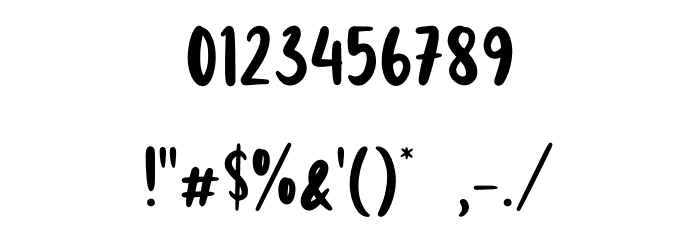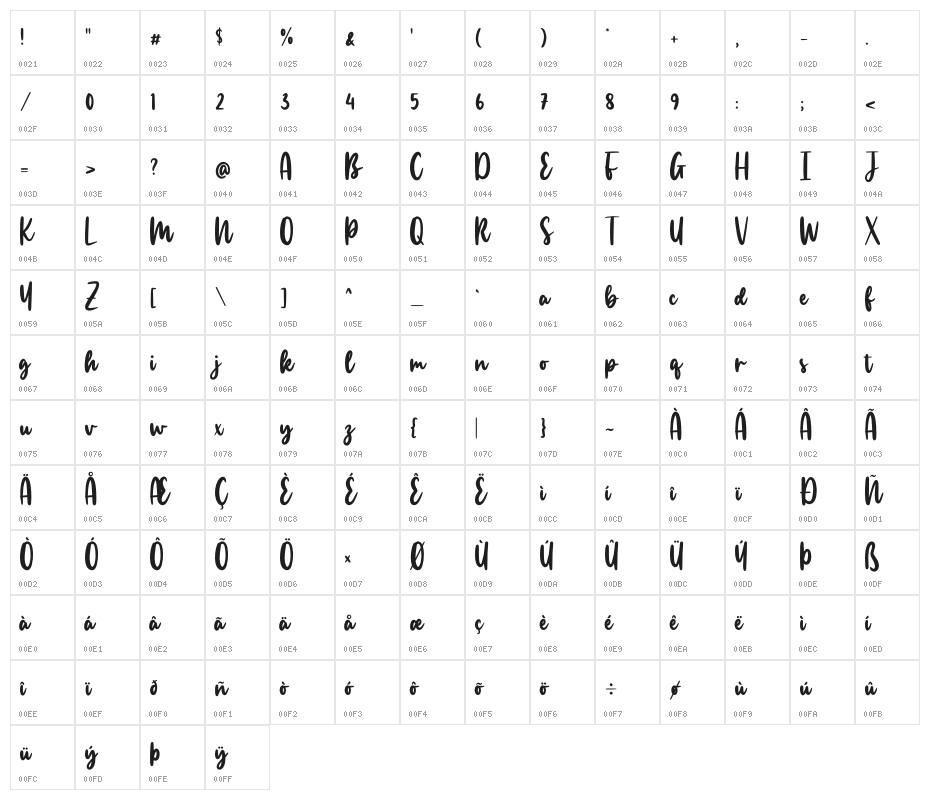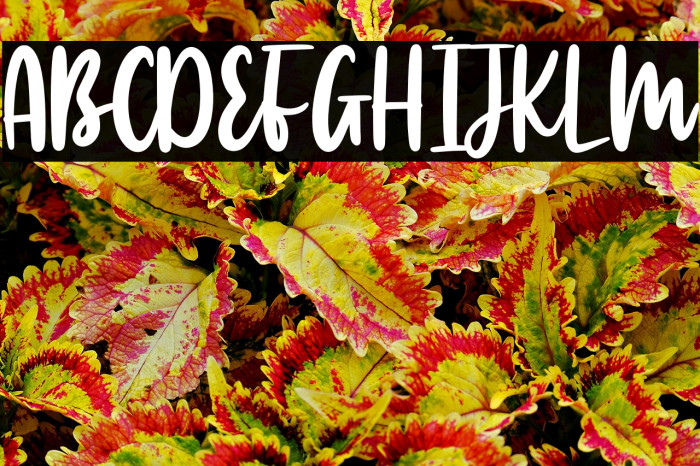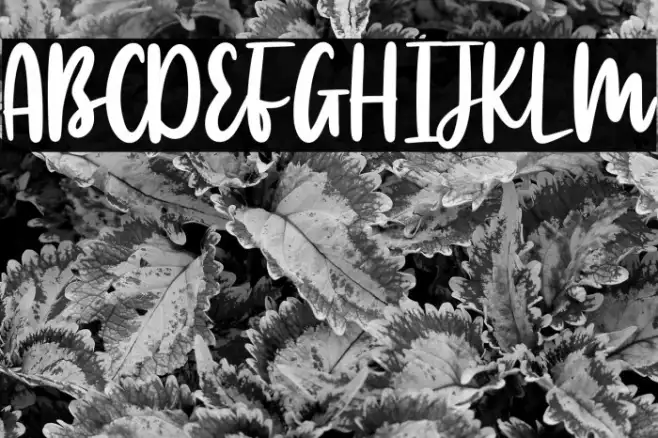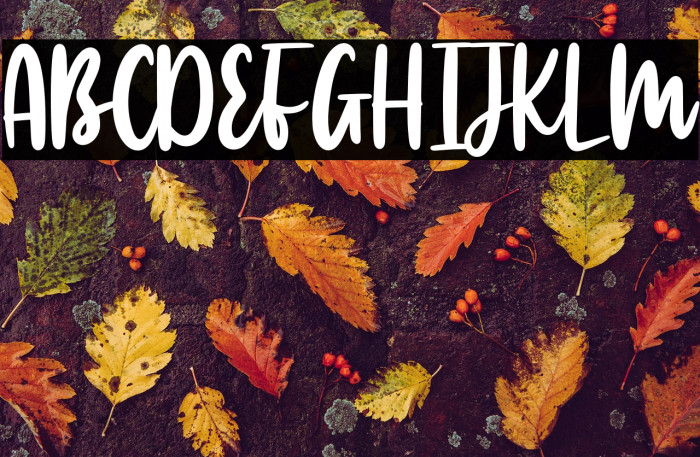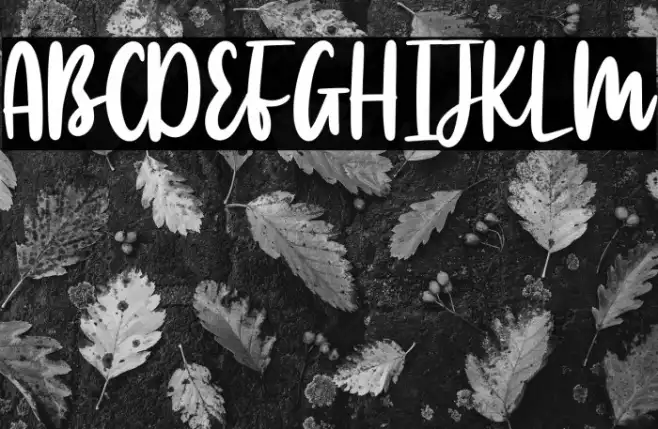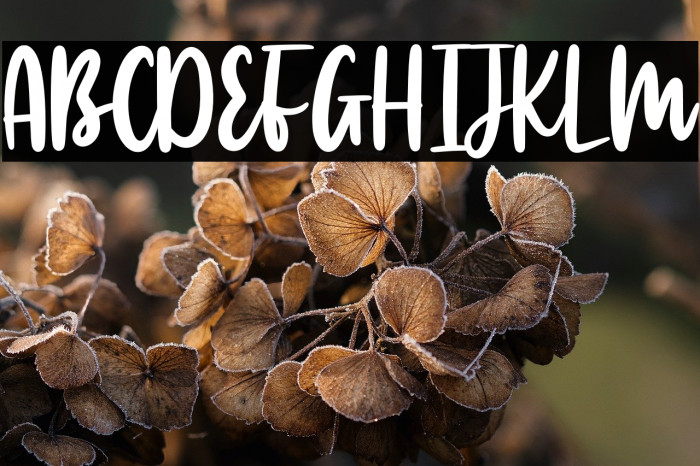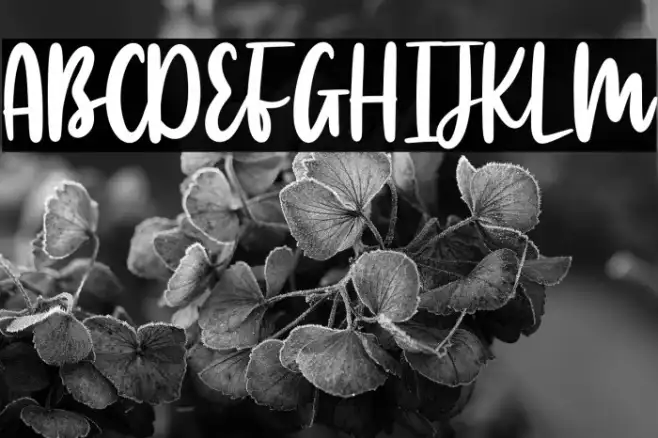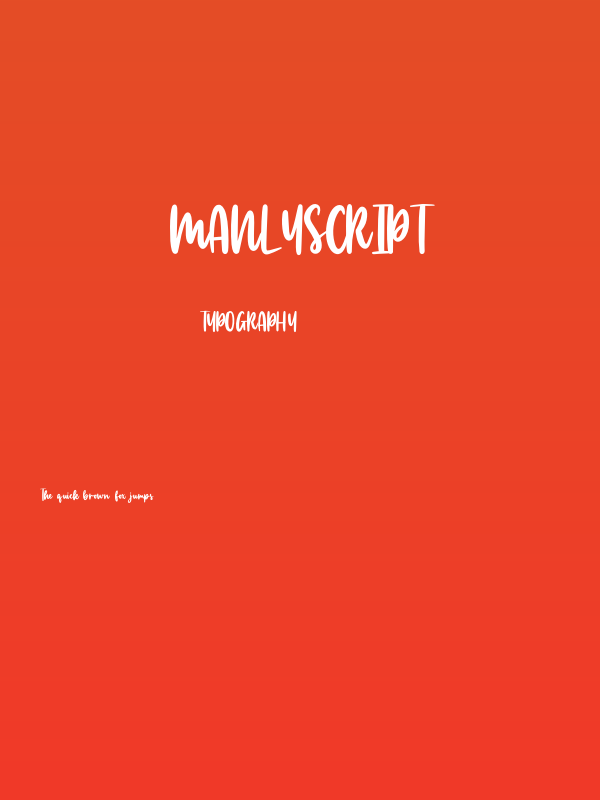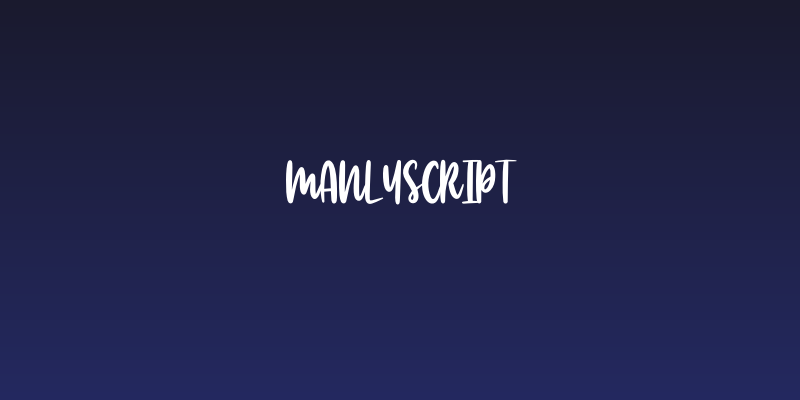
Manlyscript Font
Manlyscript Description
This font features a bold and expressive script style, characterized by its flowing, cursive letterforms that convey a sense of elegance and dynamism. The uppercase letters are tall and slightly condensed, while the lowercase letters maintain a consistent baseline with smooth, rounded curves. The numbers and special characters are designed to match the overall aesthetic, providing a cohesive look. The font's playful yet sophisticated appearance makes it suitable for a variety of creative projects.